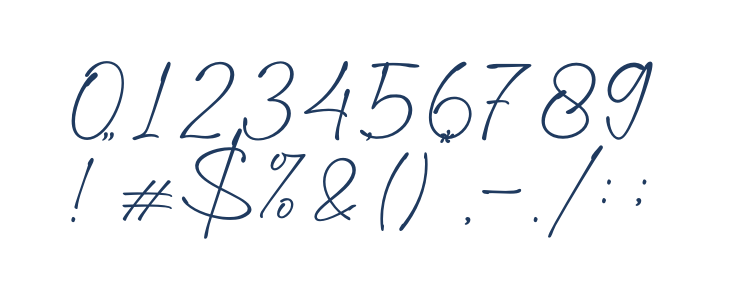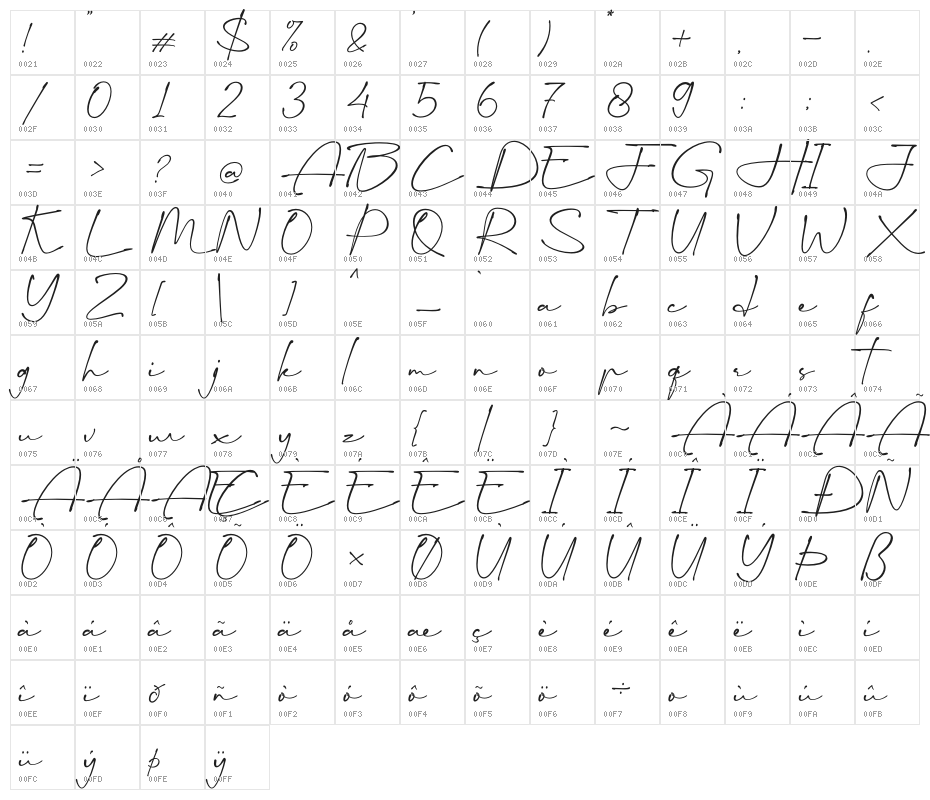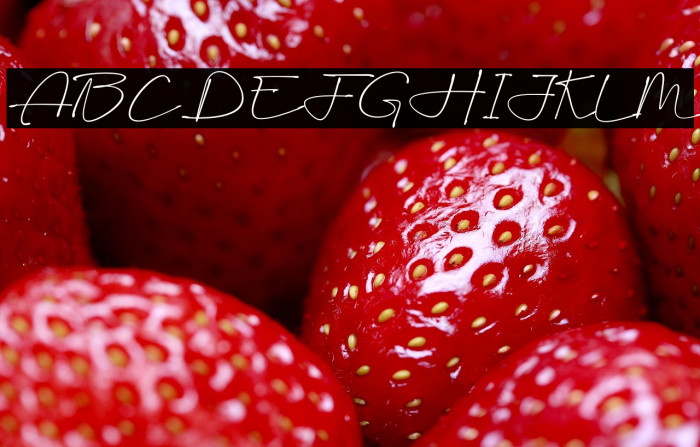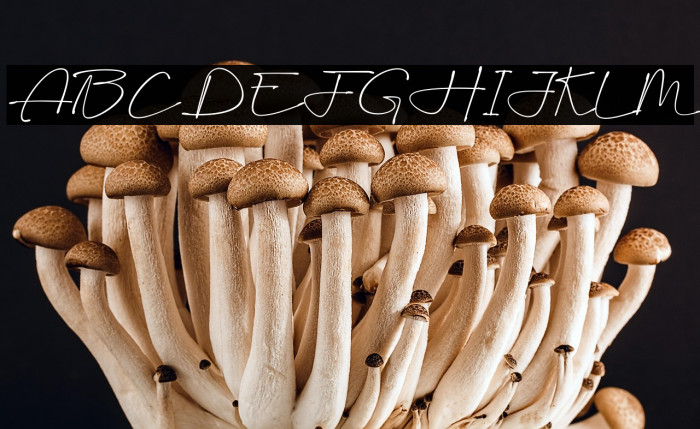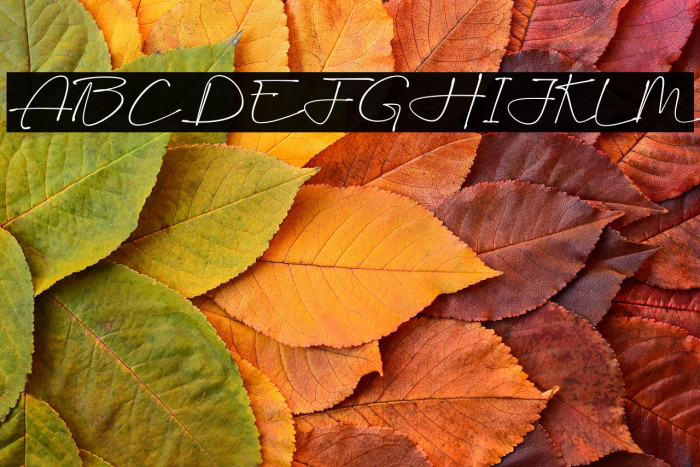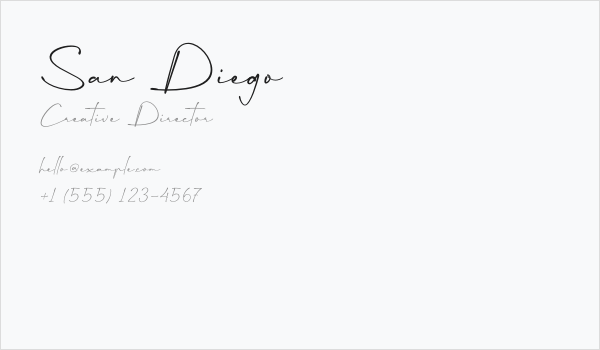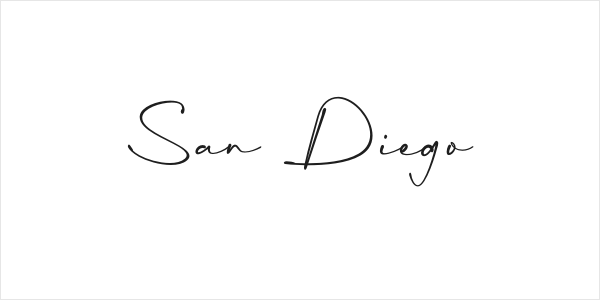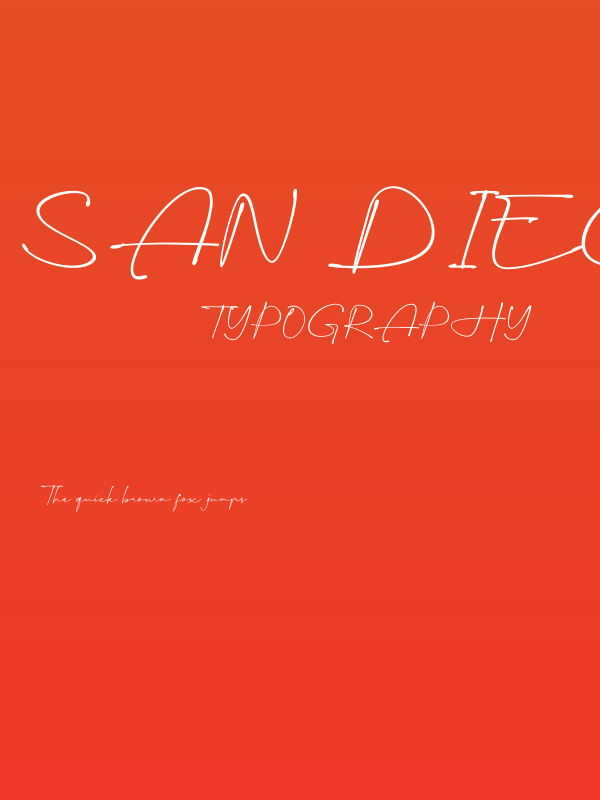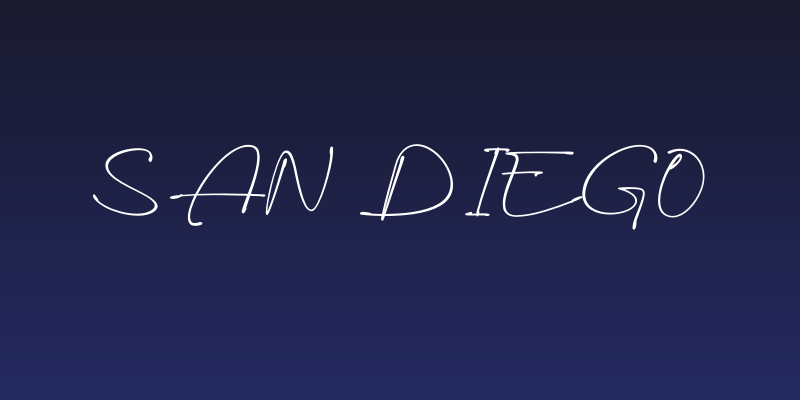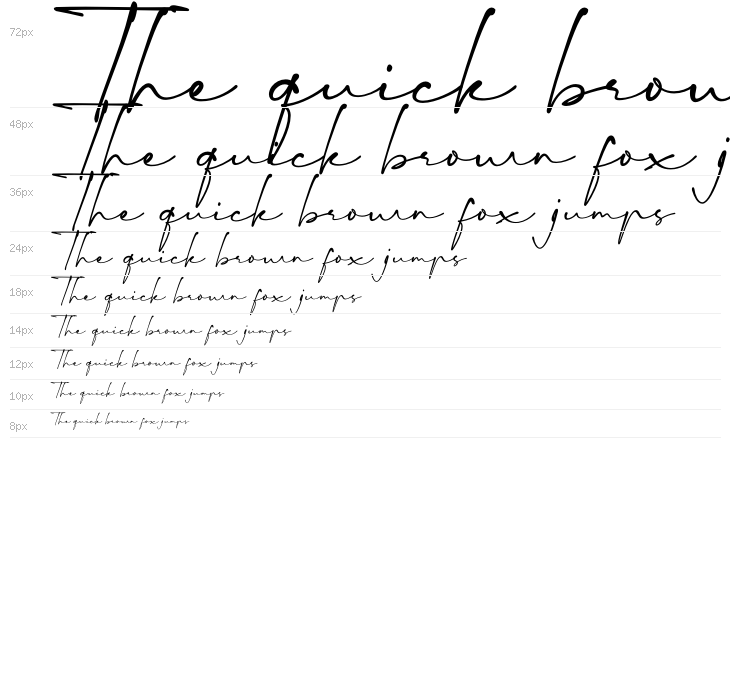
San Diego Font
San Diego Description
This font features a fluid, handwritten style that mimics natural cursive writing. The uppercase letters are elegantly elongated, while the lowercase letters maintain a consistent flow, creating a harmonious and connected appearance. The numerals and special characters are crafted with the same attention to detail, ensuring a cohesive look across all characters. The strokes are thin and delicate, adding a sense of sophistication and elegance. This font is ideal for projects that require a personal touch, such as invitations, greeting cards, or branding materials that aim to convey a sense of warmth and approachability.
| Overall Style | Elegant, Personal |
| Use Case | Headlines, Invitations, Personal Branding |
| Proposed Projects | Ideal for invitations, greeting cards, personal branding, and any project needing a warm, personal touch. |